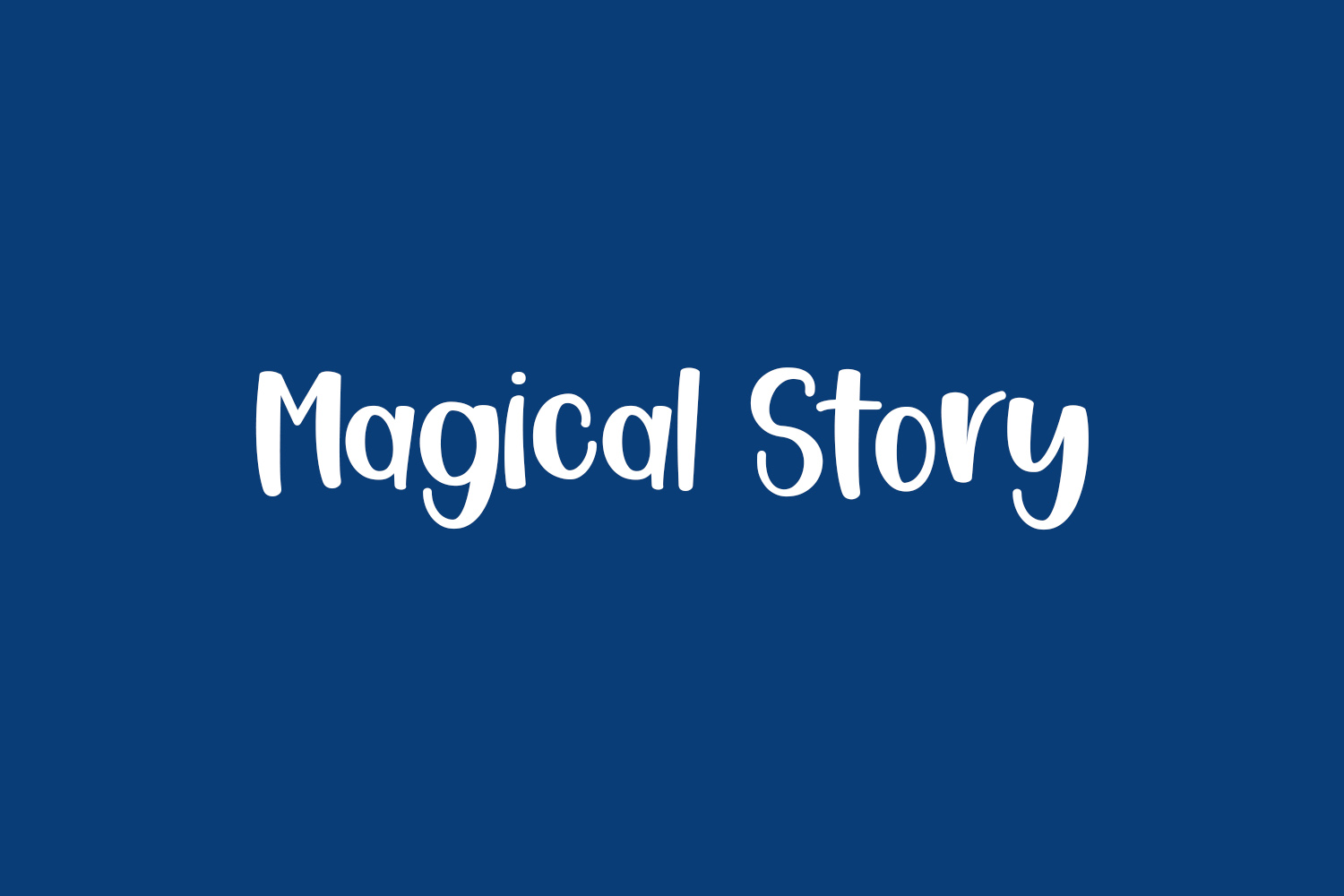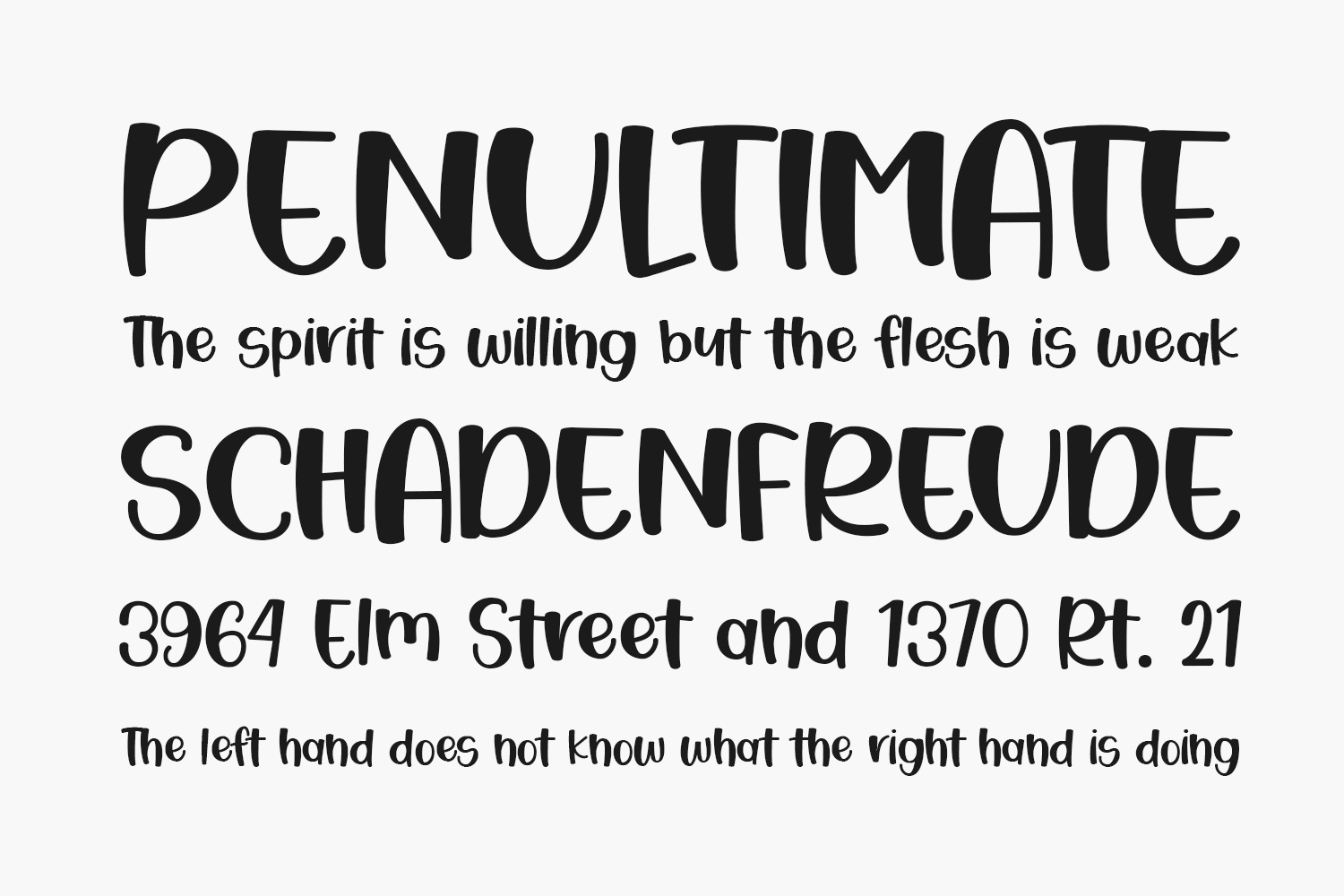
Magical Story Free Font Family is a cute, jolly, and bubbly display font. Whether you use it for cartoon related designs, children’s games, or just any creation that requires a lovely touch, this font will be an amazing choice. Magical Story Free Font Family was designed by Gilar Studio and is free for personal use only. Please purchase the full version for commercial use.